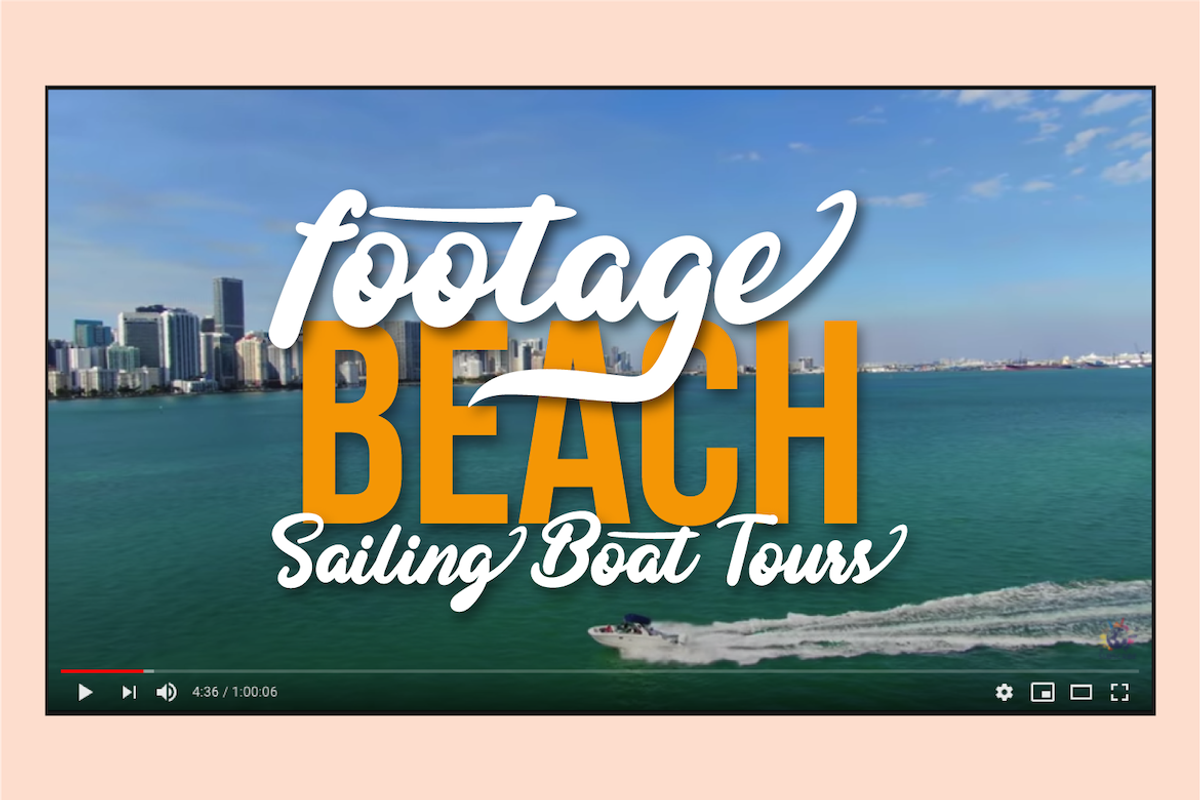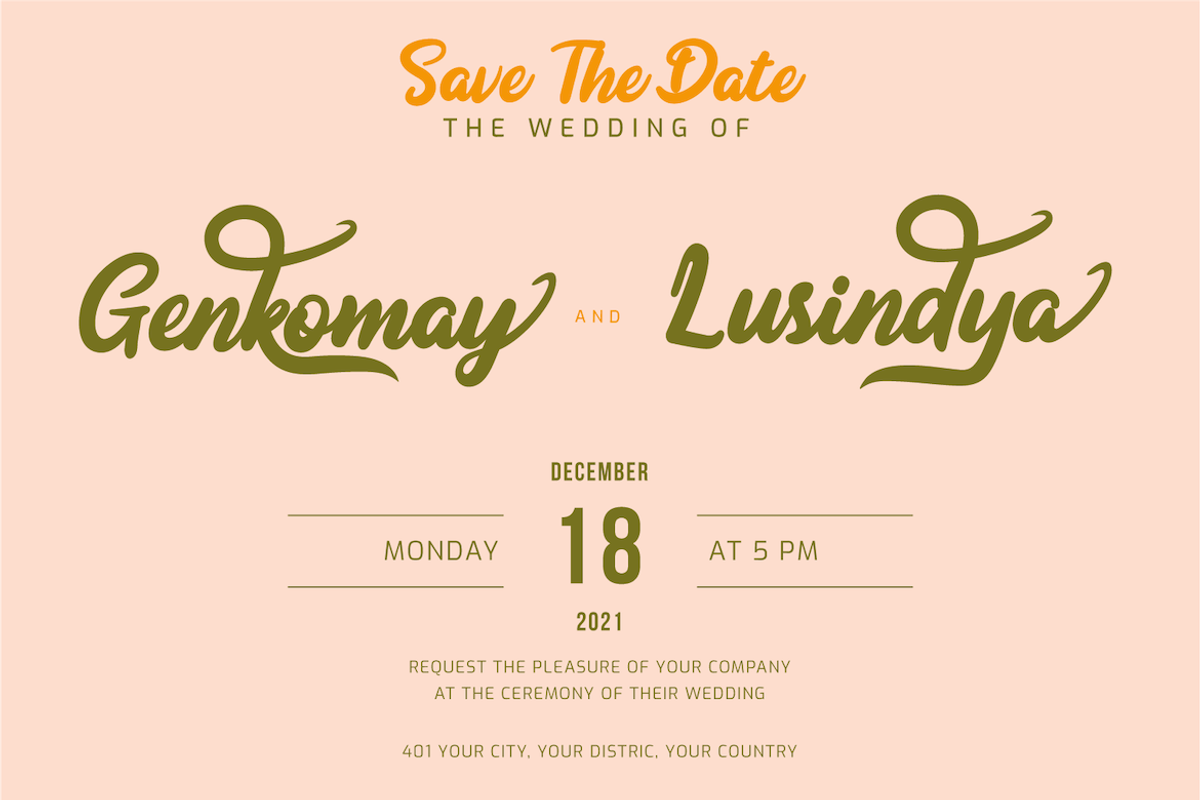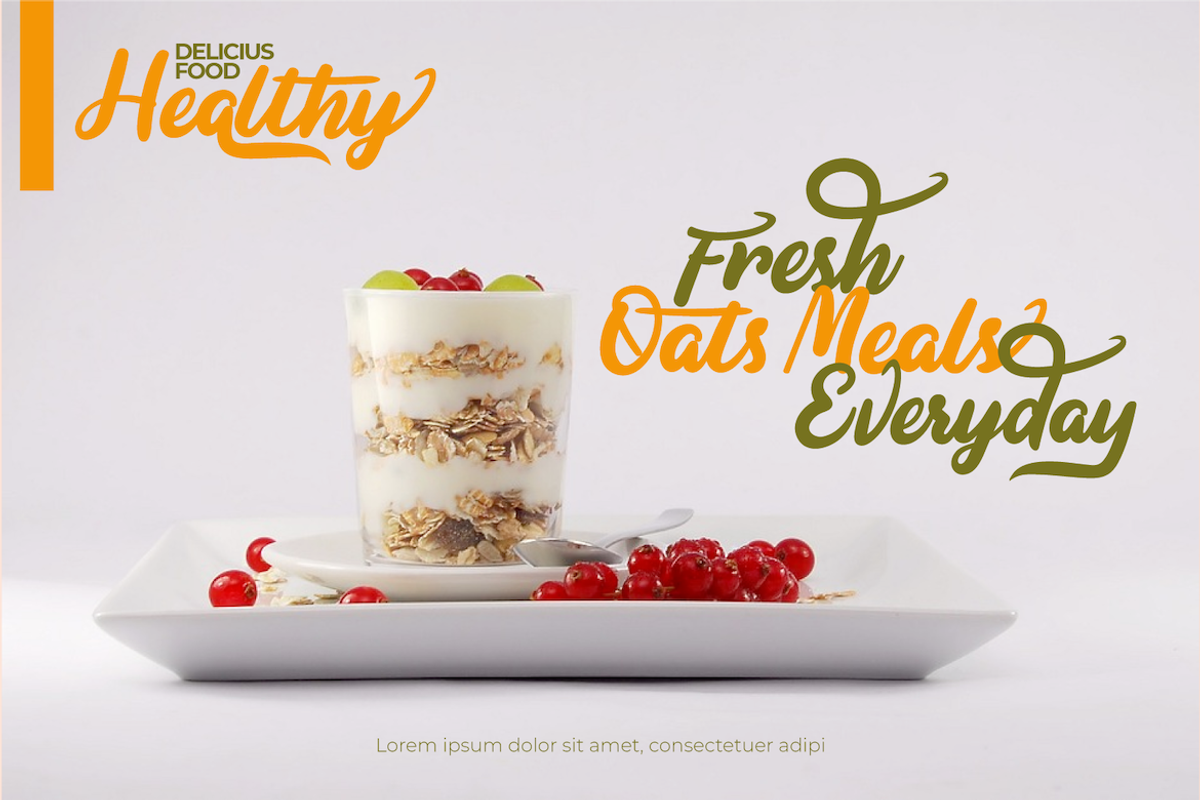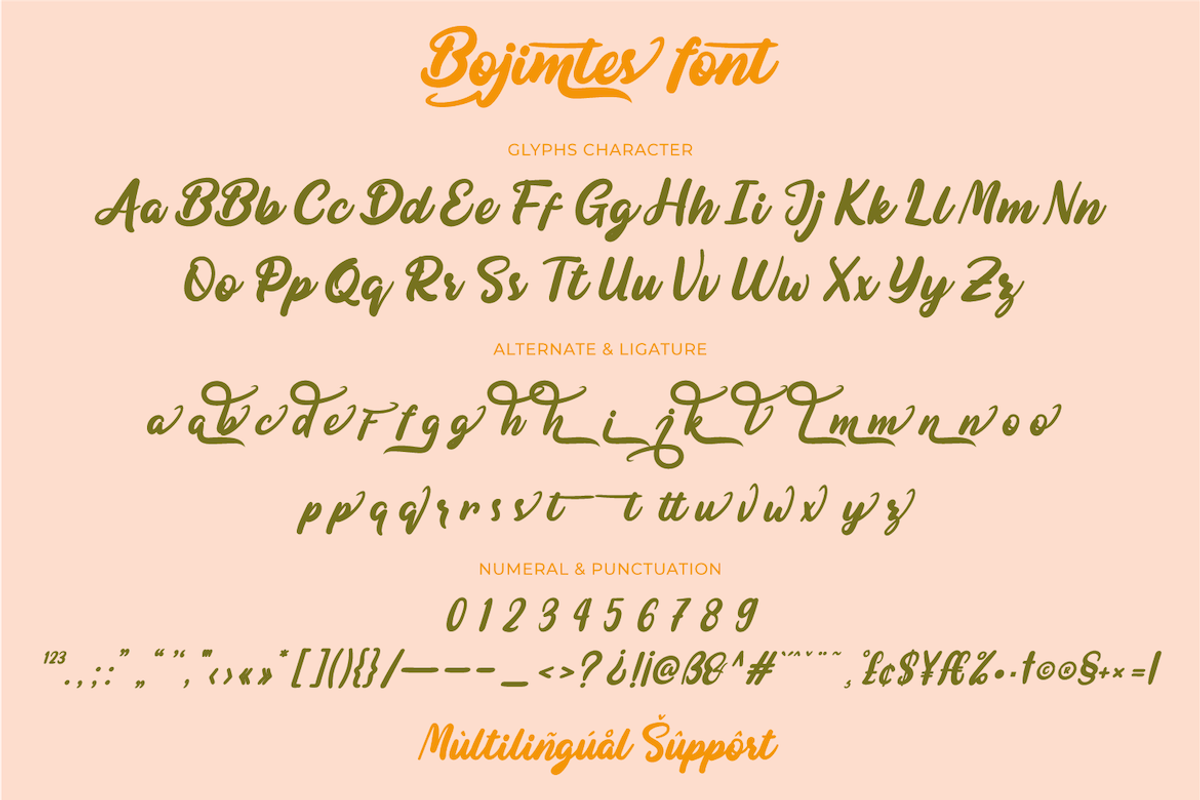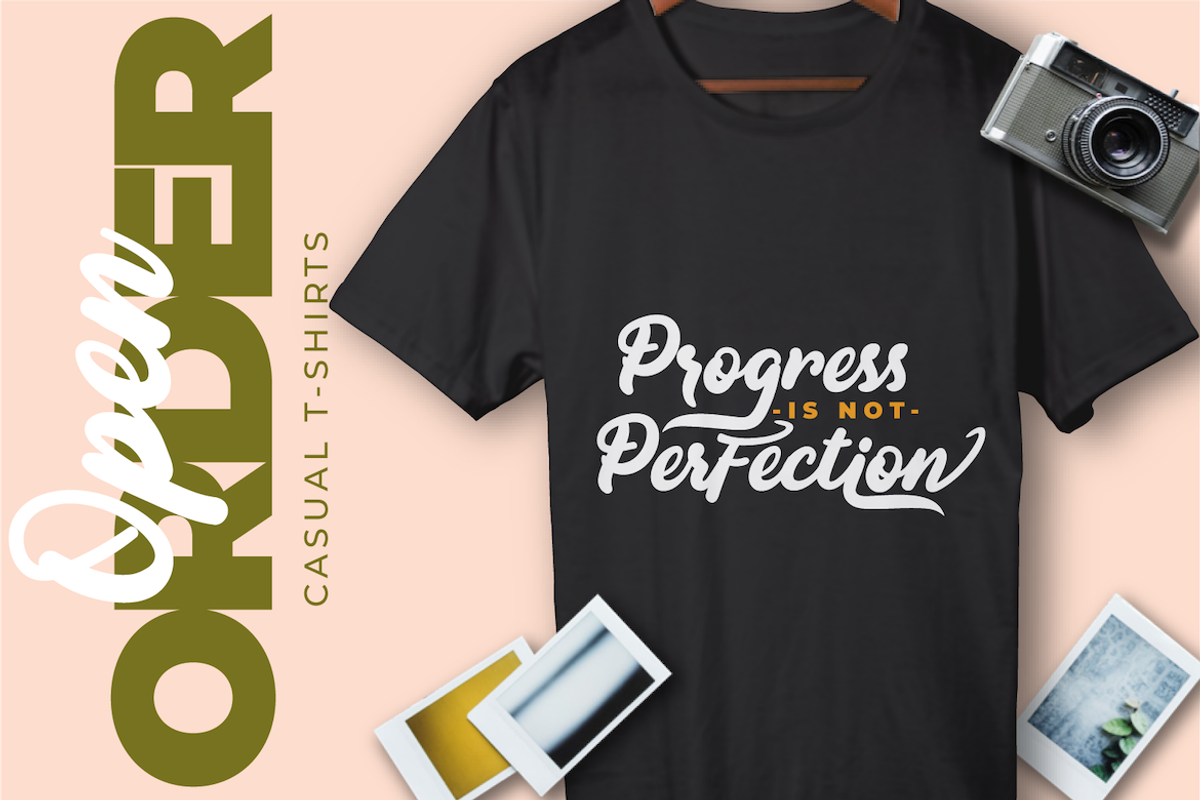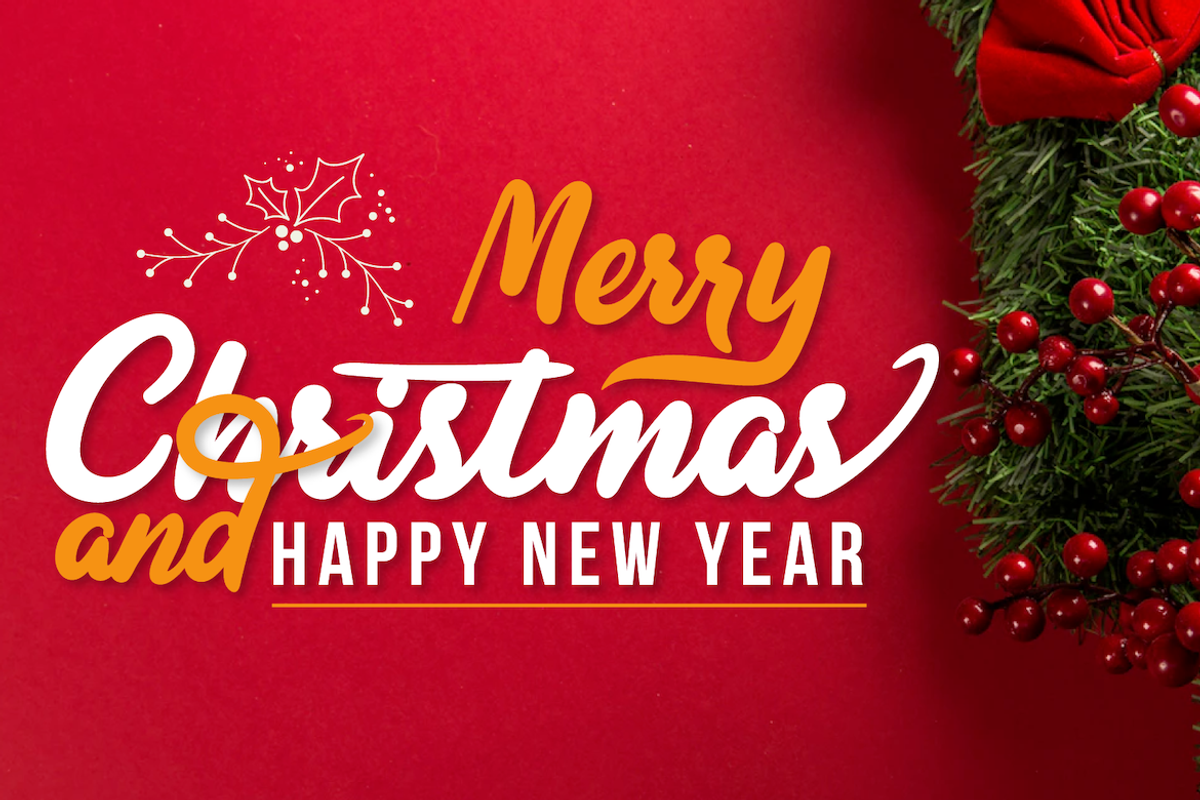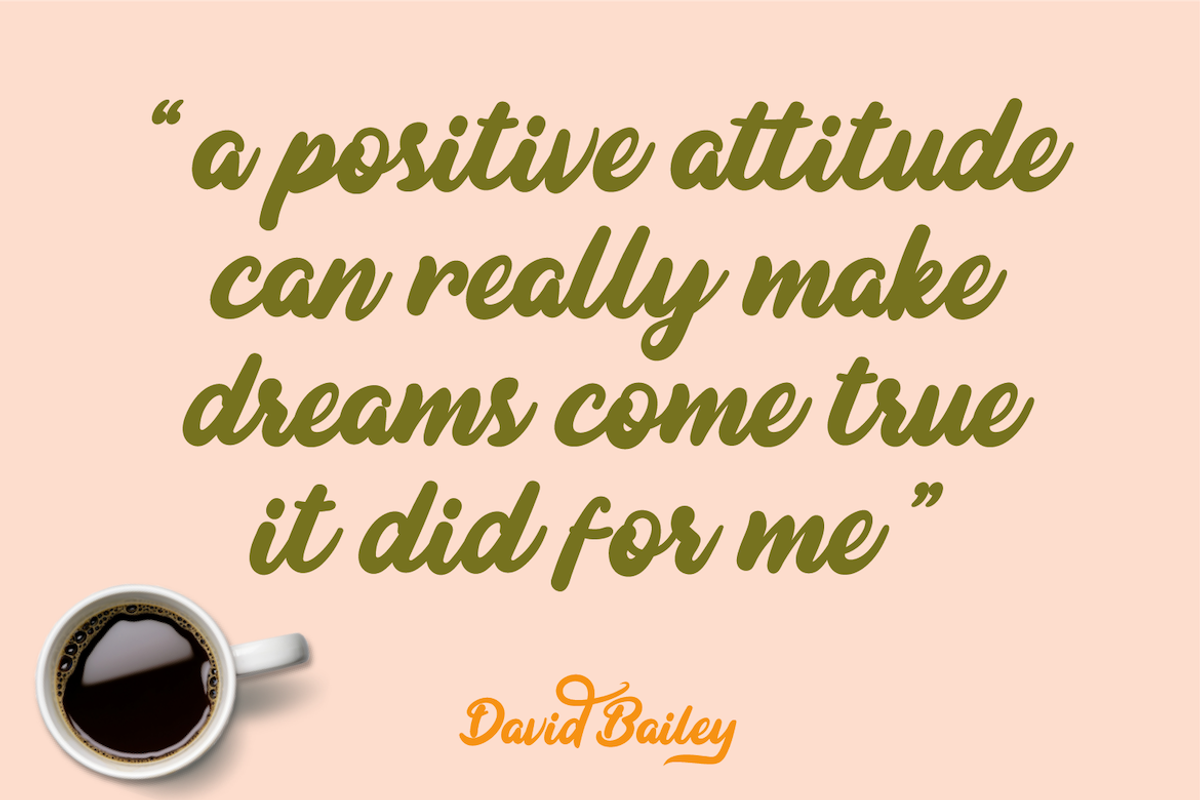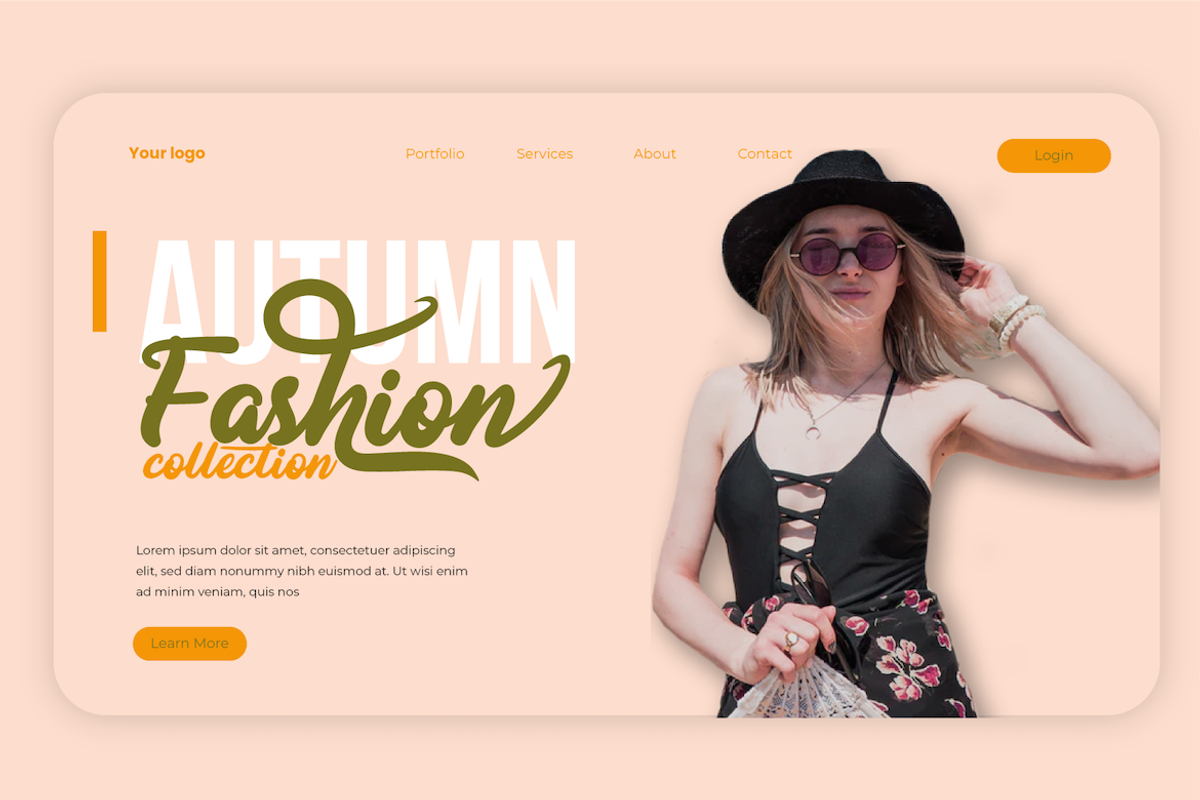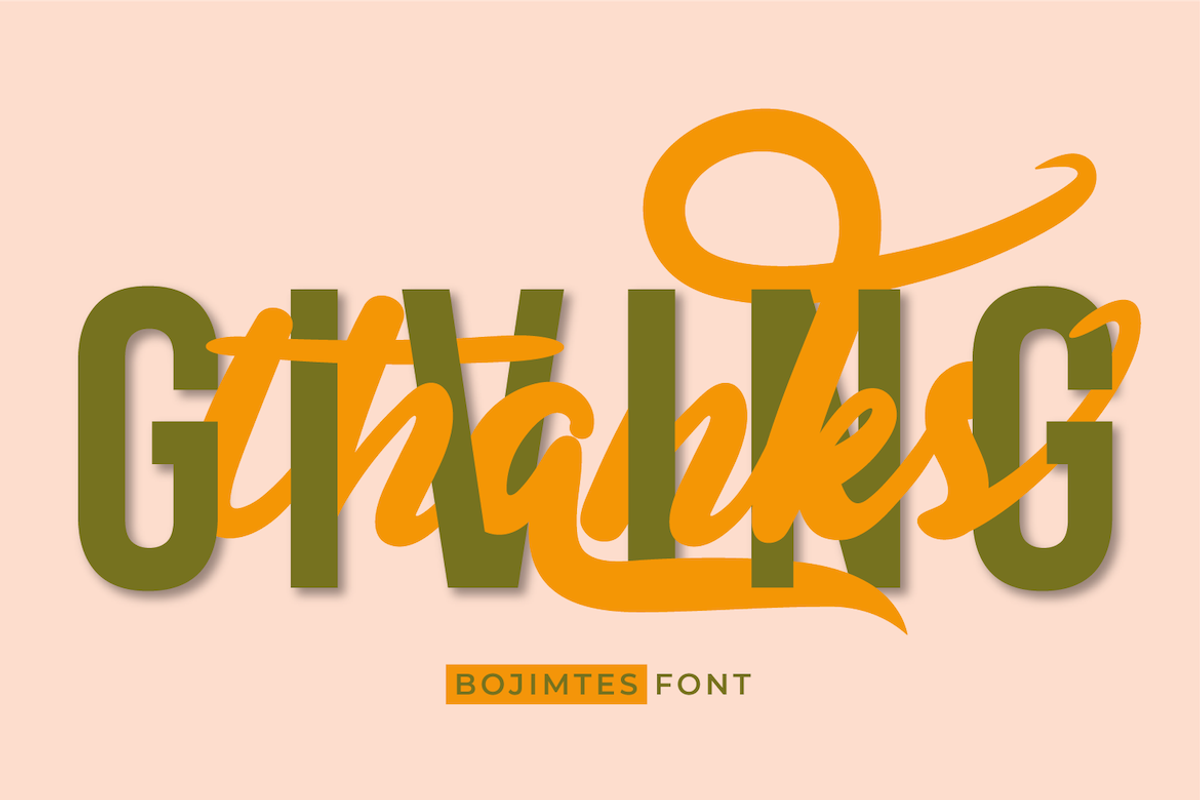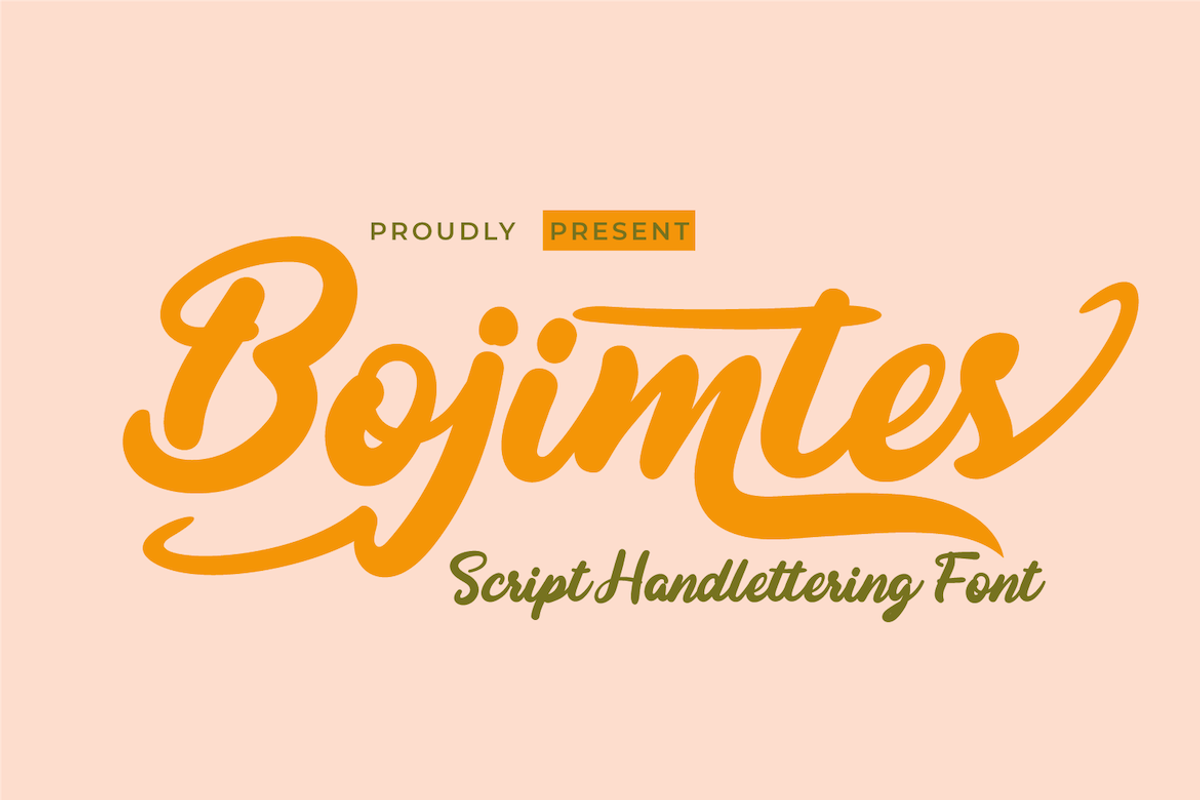
Bojimtes Font
Introduce Bomjites font.
Calligraphy fonts are made by hand in detail on each letter character so that they can be combined with various kinds of writing design needs. This font is designed to produce lovely and beautiful words and sentences, creating beautiful writing has never been easier.
Not limited to that, the bold calligraphy font is designed to keep paying attention to the beauty of each letter, there are alternate options for the letters which are certainly easy for you to access, so you can automatically customize the letters you want to enhance the visual appearance of your design project.
This charming font also offers the beauty of abstract typography harmony for a wide variety of design projects, including digital natural handwriting for designs, quote designs, for social media business designs, advertisements, trademarks, food and beverage promotion banners, text, posters, a signature, and all designs require handwriting or whatever design you want.